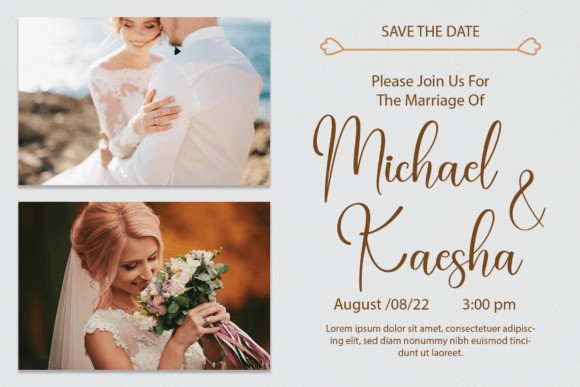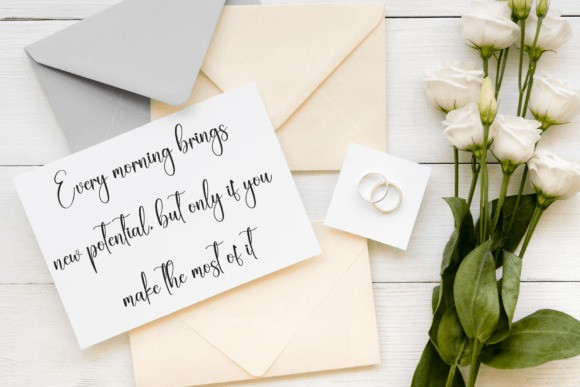
Cookies Santa Font
Cookies Santa Font is an enchanting handwritten font featuring adorable swashes. With its playful charm, this font adds a delightful touch to your text, making it perfect for festive designs, greeting cards, and whimsical projects. Embrace the sweetness of Cookies Santa as it infuses a warm and inviting feel into your creations, capturing the spirit of joy and celebration in every stroke.